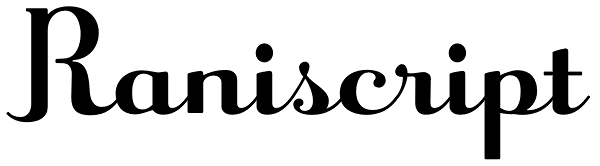
Raniscript
Raniscript started out as an idea for a bold and strongly structured ronde style script with some contemporary touches. As I tinkered with various forms it took on a life of its own. Having an old world feel, it makes me visualize faded shop signs...